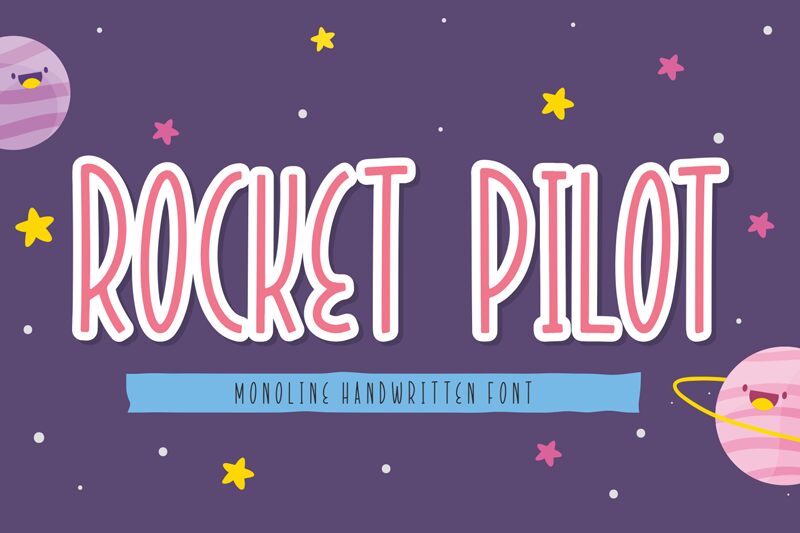
Rocket Pilot, a captivating display font crafted by the Forberas Club, exudes a whimsical, cartoon-inspired aesthetic. With its light, condensed strokes, this font radiates a playful and energetic vibe, perfect for adding a touch of personality to various design projects.
The distinctive letterforms of Rocket Pilot captivate the eye, blending retro-futuristic elements with a modern sensibility. Its unique character shapes and fluid transitions between thick and thin lines create a dynamic visual rhythm, inviting the viewer to explore the font's infectious charm. Whether used for headlines, logos, or eye-catching accents, Rocket Pilot has the power to elevate designs with its indelible charm and youthful spirit.